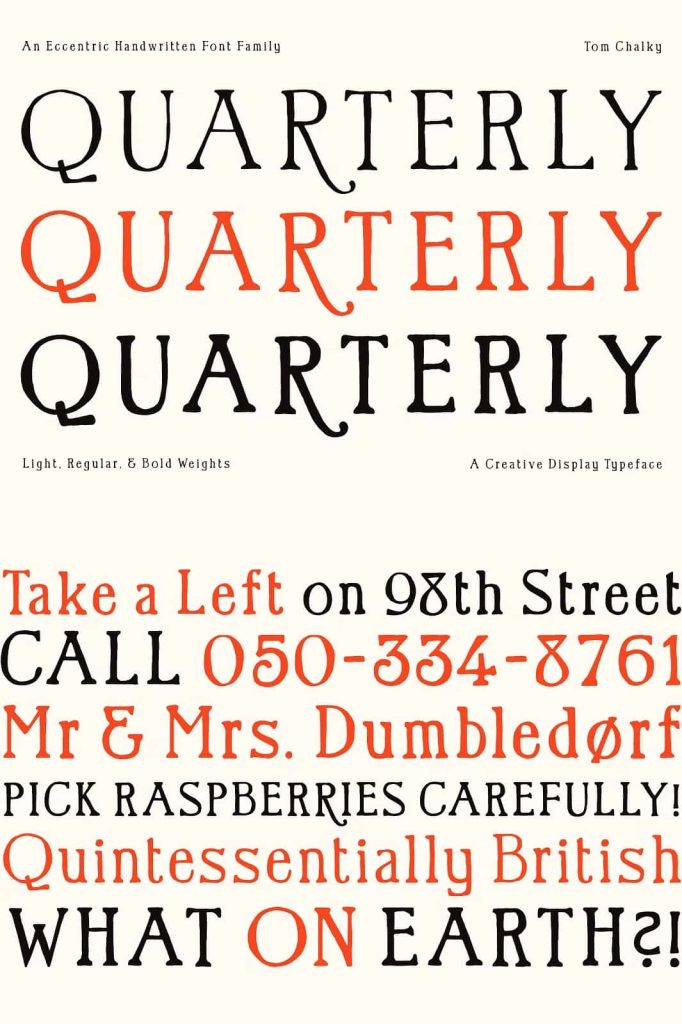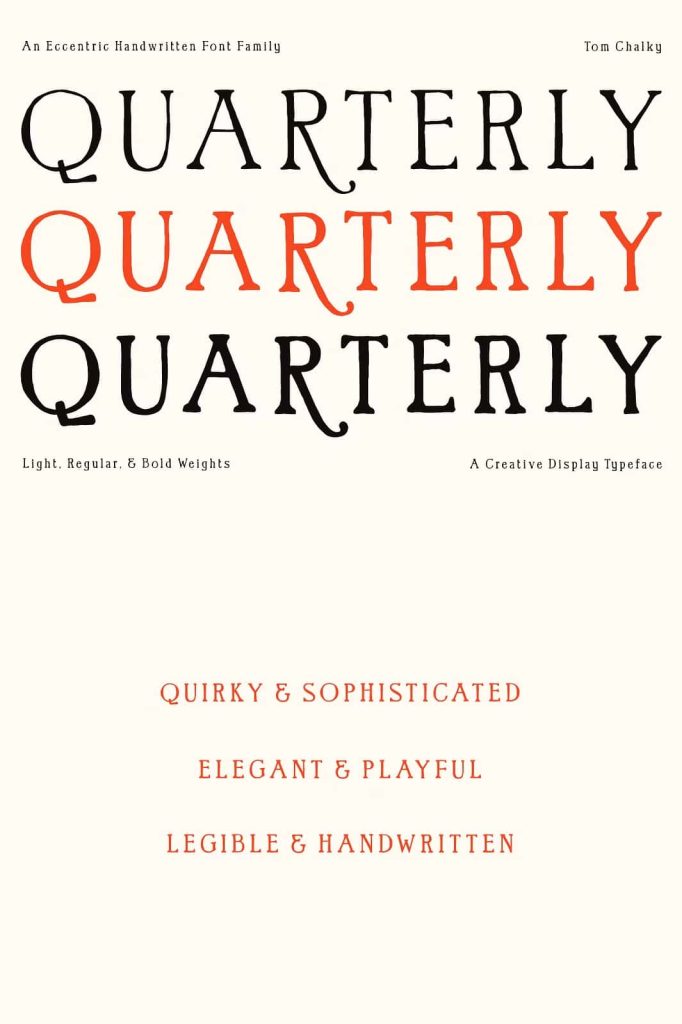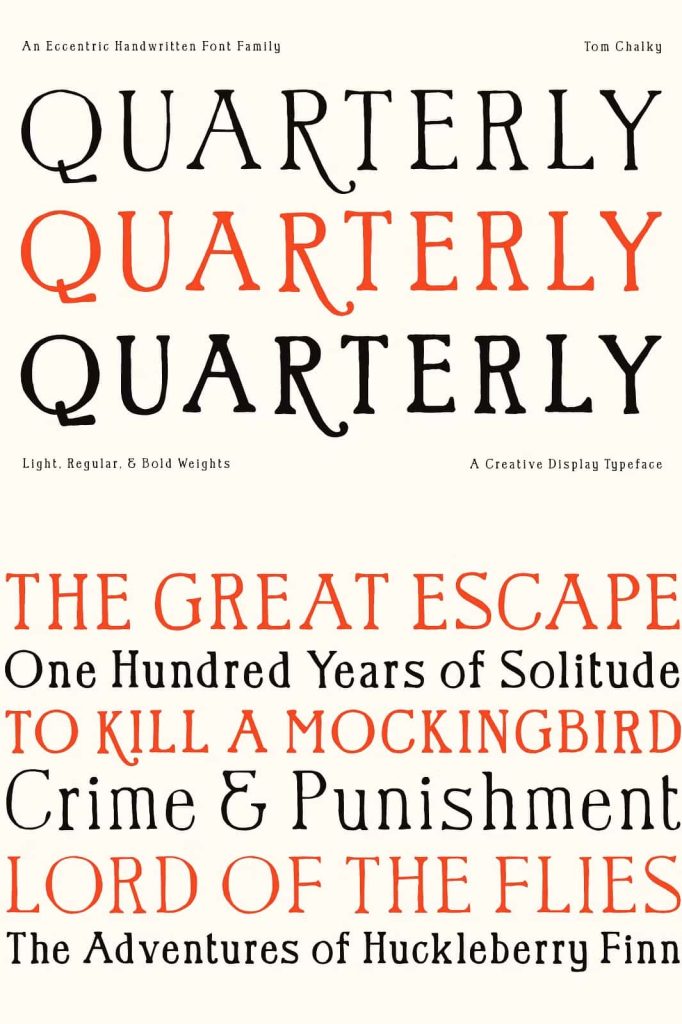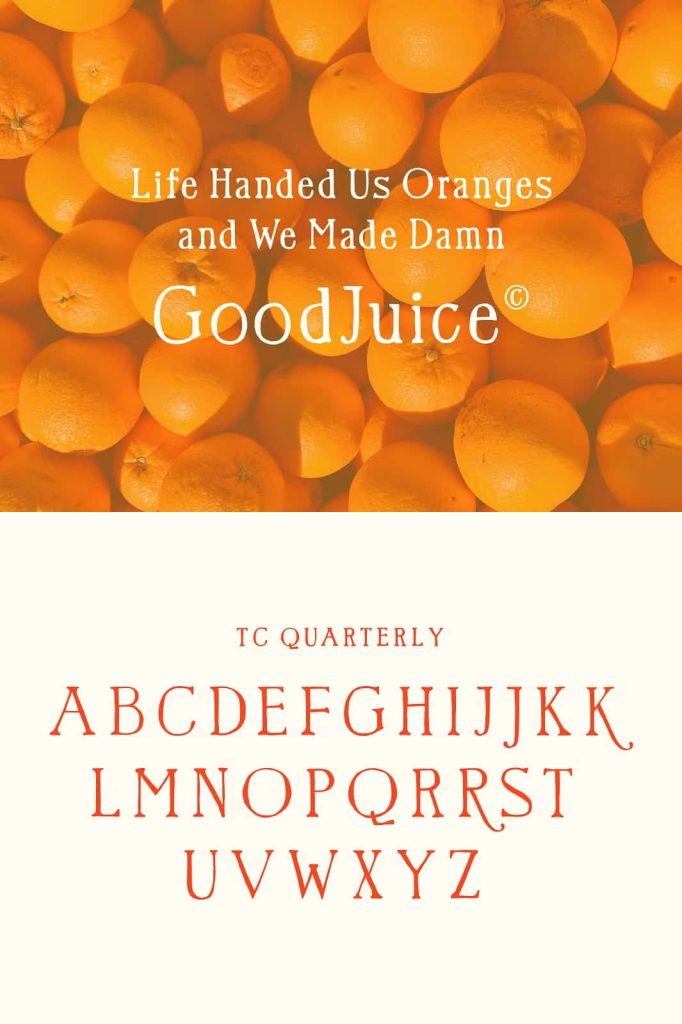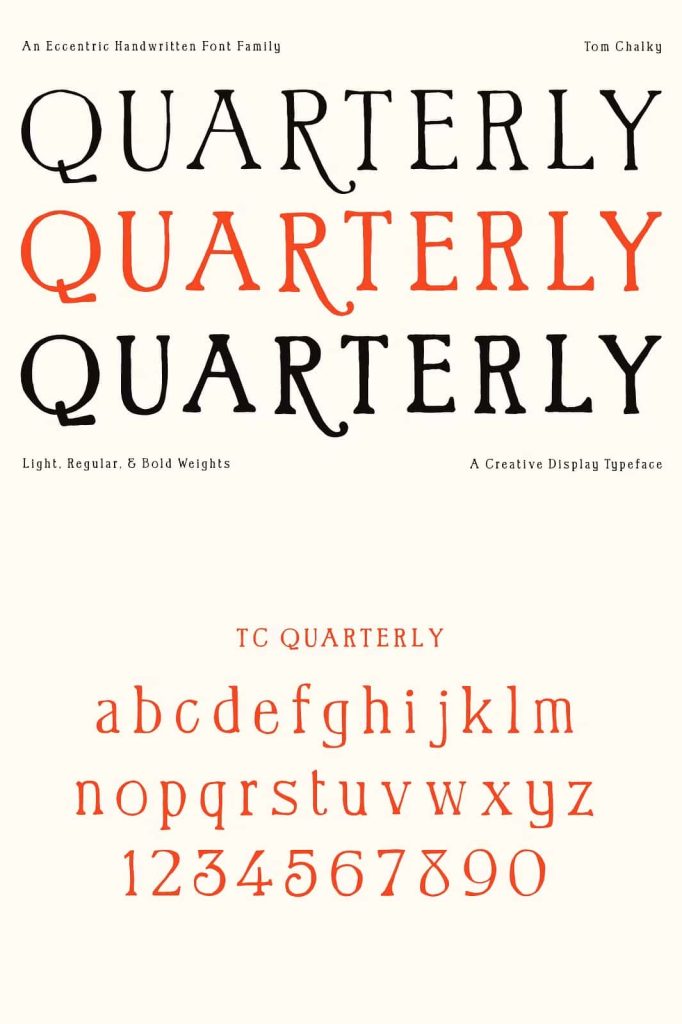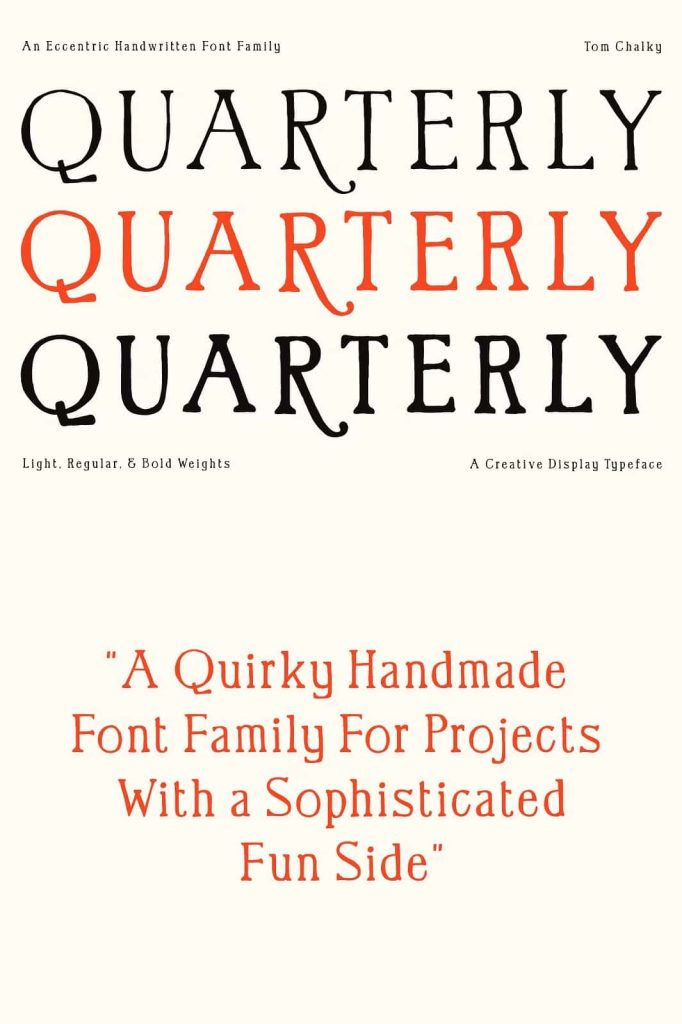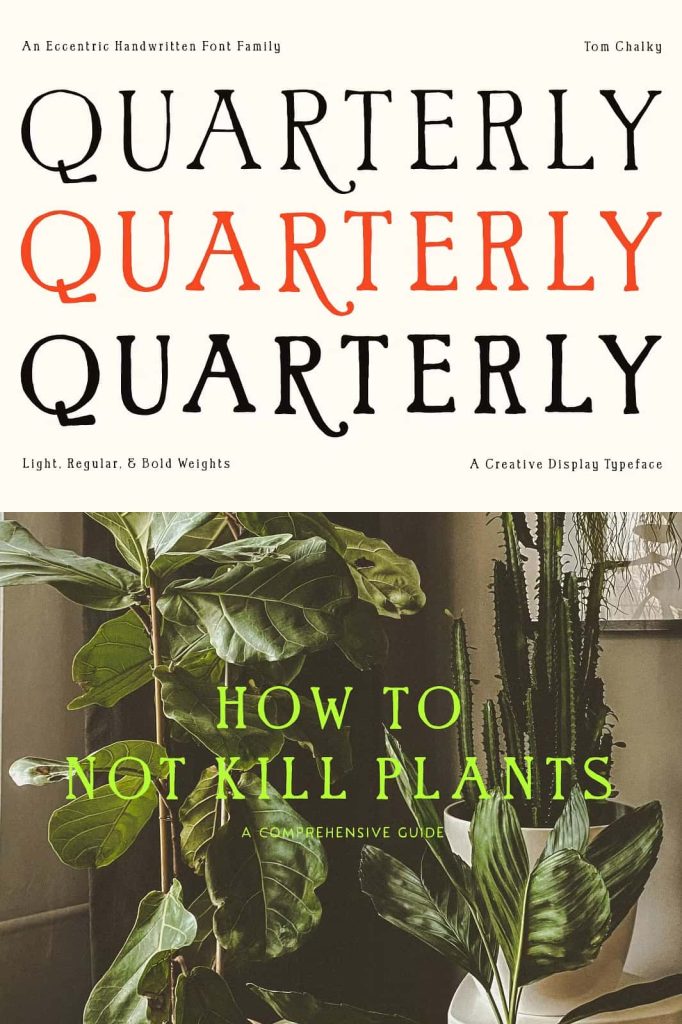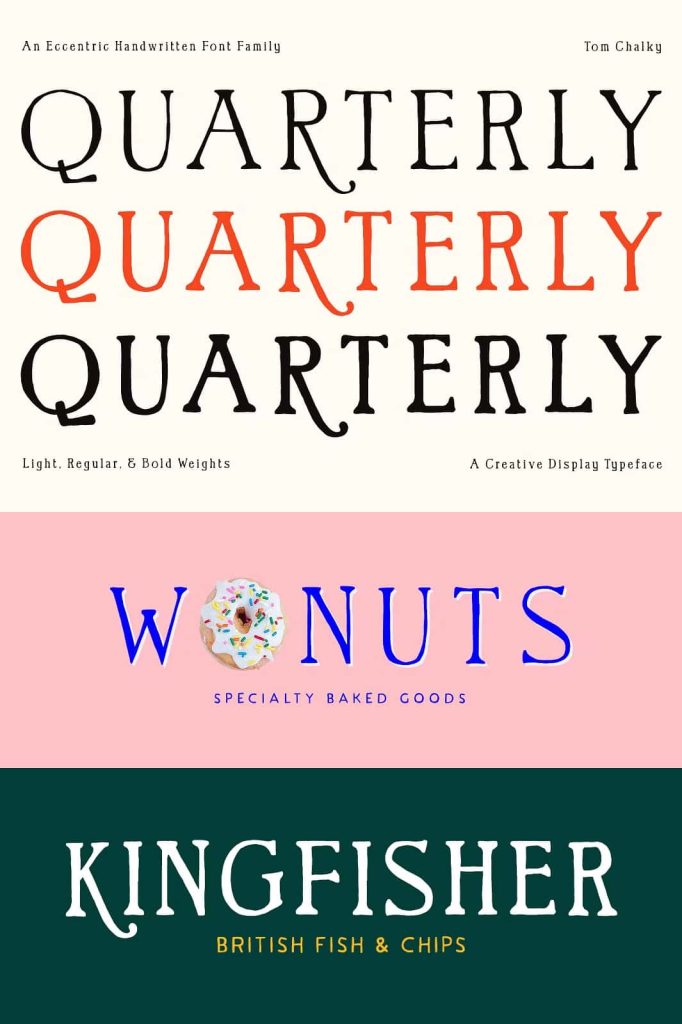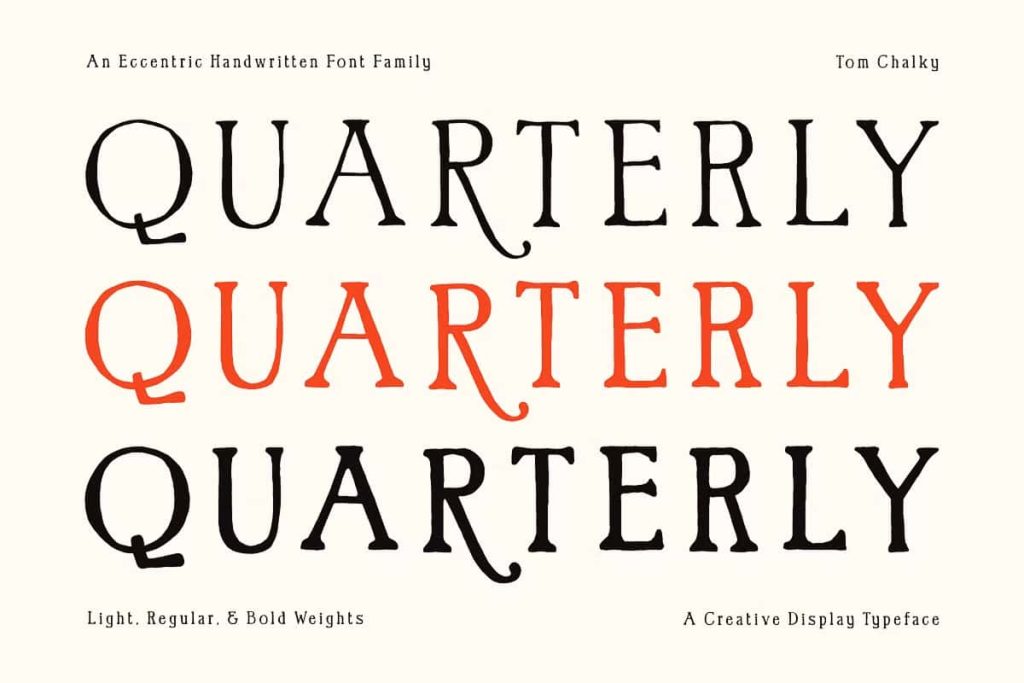
Quarterly – Quirky Handwritten Font
Quarterly Handwritten Font Family
Introducing Quarterly Handwritten Font Family, a beautifully crafted typeface that blends playful creativity with timeless elegance. Designed to capture the authentic charm of handwritten lettering, Quarterly delivers a strong visual presence while maintaining a warm and approachable character. Whether you’re creating a standout brand identity, designing eye-catching packaging, or crafting a memorable book cover, this font provides the versatility and personality needed to elevate your work.
Quarterly combines bold handcrafted strokes with subtle irregularities that give every letter a unique and organic appearance. The result is a font that feels natural, expressive, and full of character. Its carefully balanced design allows it to adapt effortlessly to both modern and classic projects, making it an excellent addition to any designer’s font collection.
A Unique Blend of Playful and Classic Design
Quarterly stands out through its distinctive combination of whimsical energy and traditional sophistication. Each character features slightly varied shapes and confident curves that create an authentic handwritten feel. Unlike overly polished typefaces, Quarterly embraces the beauty of imperfection, giving your designs a more personal and engaging appearance.
The bold structure ensures excellent readability across a variety of applications, while the handcrafted details add visual interest and artistic flair. This combination makes Quarterly ideal for projects that need to communicate creativity, authenticity, and individuality.
Handcrafted Aesthetic with Strong Personality
At the heart of Quarterly is a handcrafted aesthetic that celebrates expressive typography. The font showcases irregular yet carefully designed strokes that mimic natural handwriting without sacrificing quality or consistency. Every letter contributes to a cohesive visual style that feels energetic, confident, and inviting.
The strong character of Quarterly helps brands and creatives establish a memorable identity. Whether used as a headline font or a focal design element, it instantly draws attention and adds a human touch to your message. Its bold appearance makes it particularly effective for projects that require impact and personality.
Key Design Features
• Bold handcrafted letterforms with authentic character.
• Playful yet professional appearance.
• Distinctive curves and organic stroke variations.
• Excellent readability across print and digital media.
• Versatile style suitable for both modern and vintage-inspired designs.
• Strong visual impact for headlines, logos, and branding materials.
Perfect for Creative Projects
Quarterly offers exceptional flexibility for a wide range of design applications. Its expressive style allows designers to create work that feels unique, engaging, and memorable. The font performs beautifully in both large display settings and carefully crafted branding projects.
Use Quarterly for:
• Brand identity and logo design.
• Book covers and editorial projects.
• Product packaging and labels.
• Social media graphics and promotional content.
• Website headers and digital advertisements.
• Posters, flyers, and event materials.
• Greeting cards and personalized stationery.
• Creative merchandise and apparel designs.
Create Memorable Visual Experiences
Typography plays a critical role in shaping how audiences perceive a brand or message. Quarterly empowers designers to create visual experiences that feel authentic, approachable, and impactful. Its handcrafted style adds warmth and personality, helping projects stand out in increasingly competitive markets.
The font’s confident structure and artistic details work together to create a distinctive voice that resonates with viewers. Whether you’re building a new brand, launching a product, or designing a publication, Quarterly provides the creative flexibility needed to bring your ideas to life.
Why Choose Quarterly Handwritten Font Family?
Quarterly is more than just a handwritten font. It is a carefully designed typeface that balances artistic expression with practical usability. The bold letterforms, organic imperfections, and classic undertones create a versatile design tool that adapts to countless creative applications.
If you’re searching for a font that delivers personality, authenticity, and visual impact, Quarterly Handwritten Font Family offers the perfect solution. Add a handcrafted touch to your next project and create designs that leave a lasting impression.